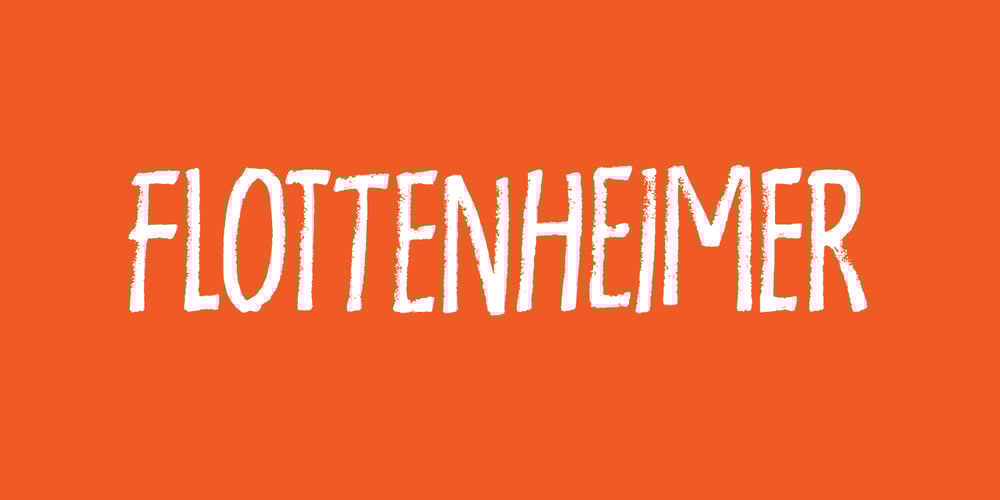
Flottenheimer Font Family was designed by Jakob Fischer and published by PizzaDude.dk. Flottenheimer contains 1 styles and family package options. Flottenheimer was done with a semi dry pen, that leaves the strokes quite rough. Some letters are more rough than other, giving a very realistic overall look to the text. To add more spice to the realistic look, I have added several versions of each letter. That means that there is 5 different versions of each letter that automatically cycles as you type! Packed with loads of accented characters!